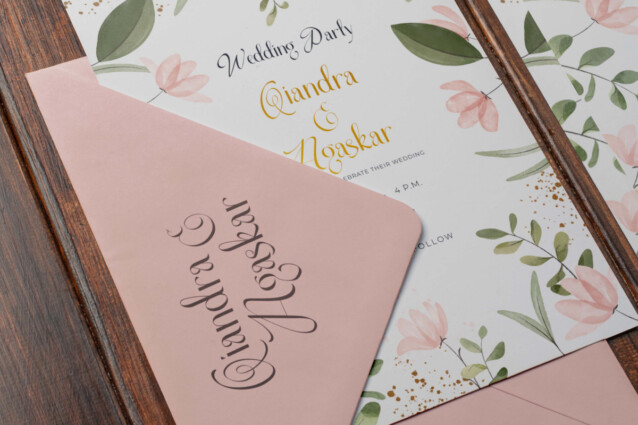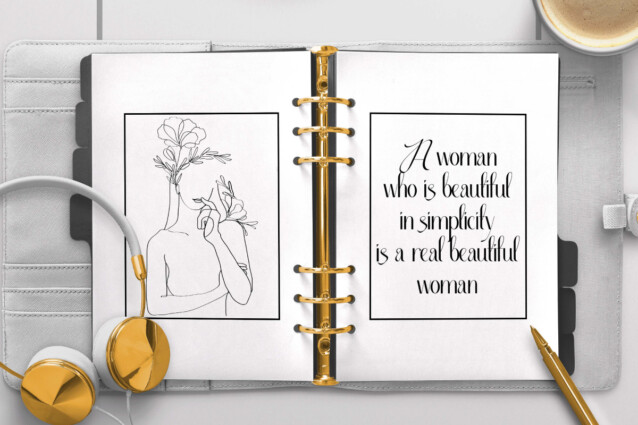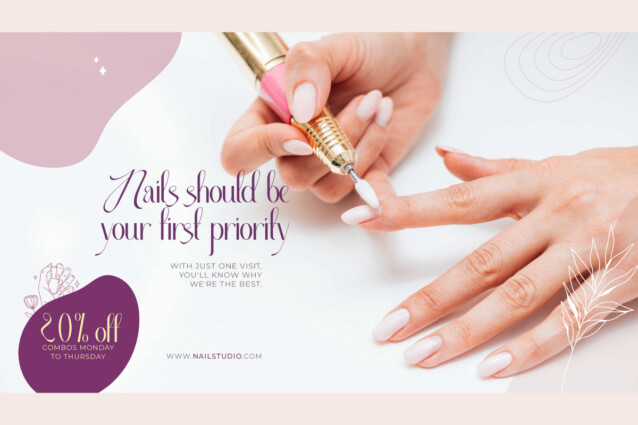
Elegant Woman Font
Elegant Woman Font is a classy display font with a dazzling shine. It will bring a luxurious touch to your design, such as apps, billboard, brand logo, brochure, business card, catalog, cover, embossed design, flyer, header, invitation, label, magazine catalog, mockup design, packaging design, poster, quote, screen print, signage, social media posts, stationery, sticker, title, website, and any projects.